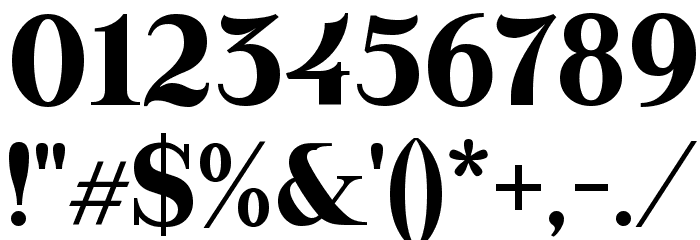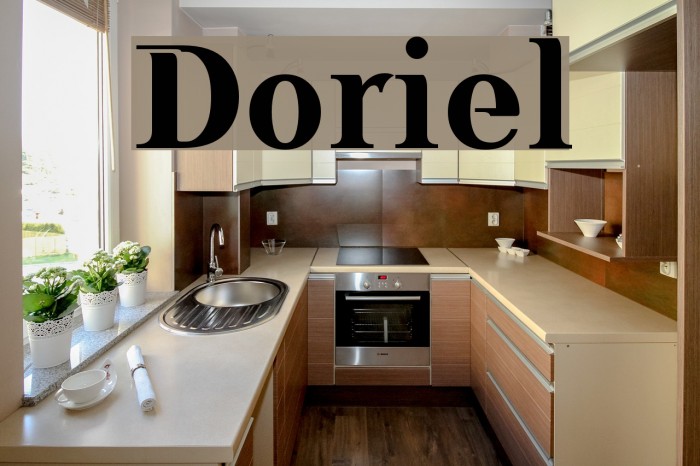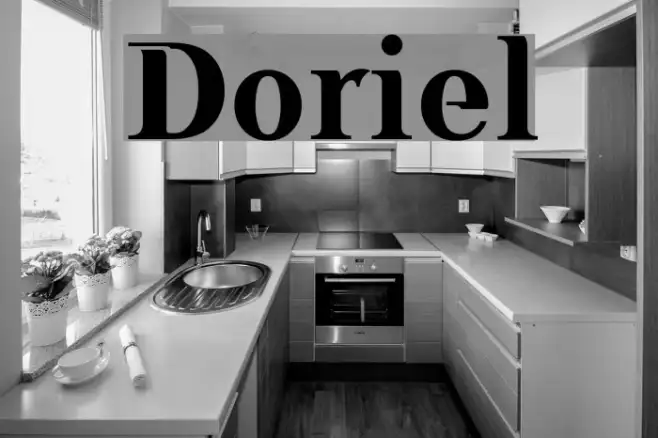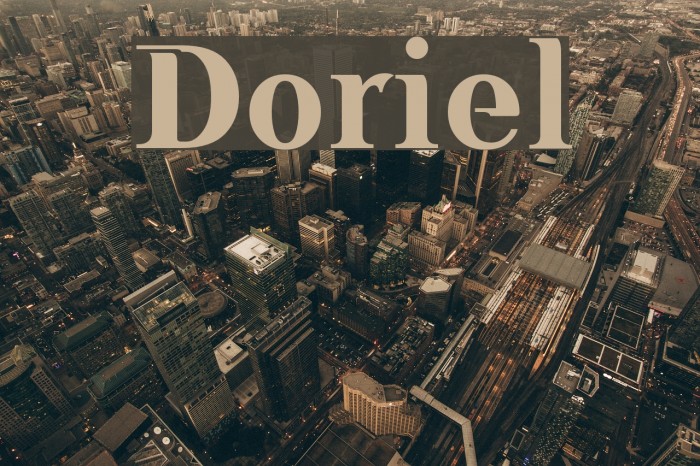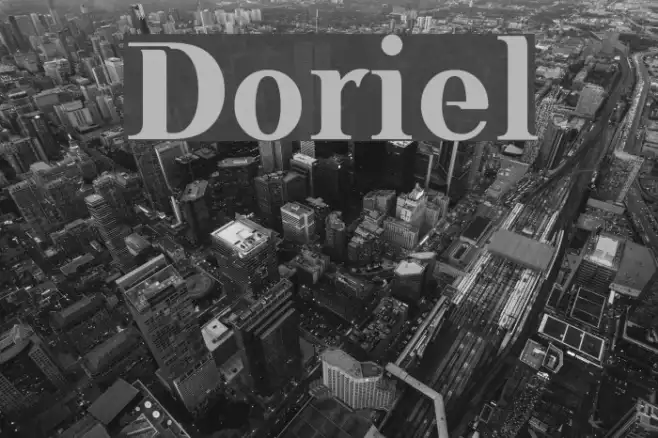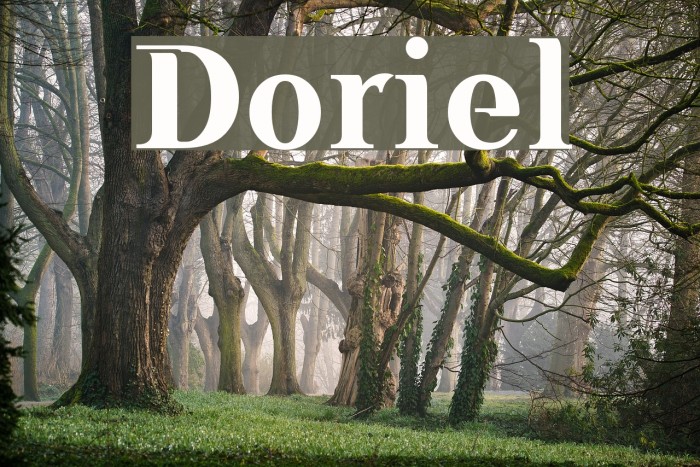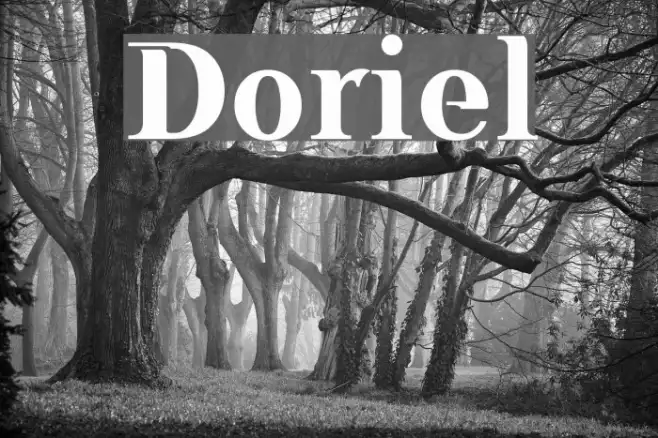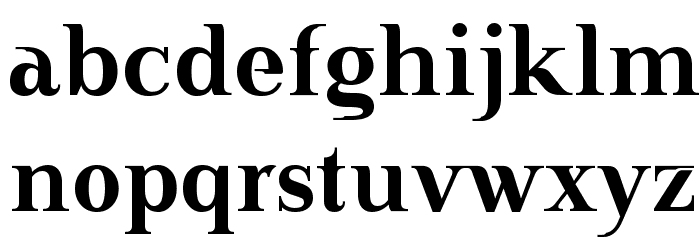
Doriel Font
Doriel Description
This font features a classic serif design with strong, bold strokes and high contrast between thick and thin lines. The serifs are pronounced, adding a traditional and formal touch to the overall appearance. The uppercase letters are well-proportioned and exude a sense of authority and elegance. The lowercase letters maintain a consistent style, with smooth curves and sharp serifs that enhance readability. The numerals are robust and clear, making them suitable for various applications. Special characters are designed with the same attention to detail, ensuring a cohesive look across all glyphs.
| Overall Style | Classic |
| Use Case | Headlines, Logos, Editorial design |
| Proposed Projects | Ideal for book covers, formal invitations, branding for luxury products, and editorial design. |